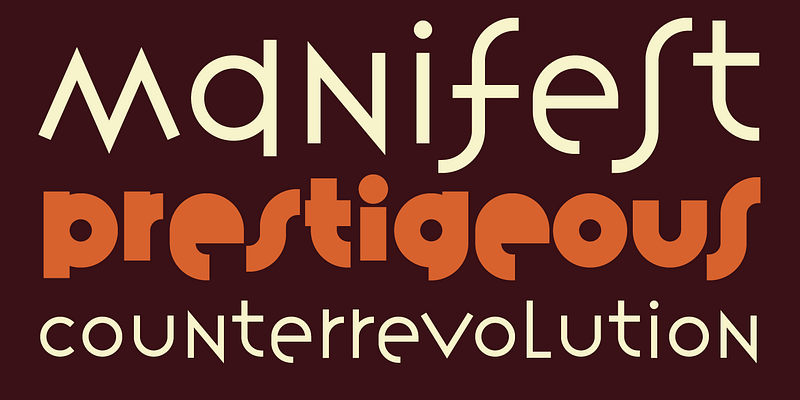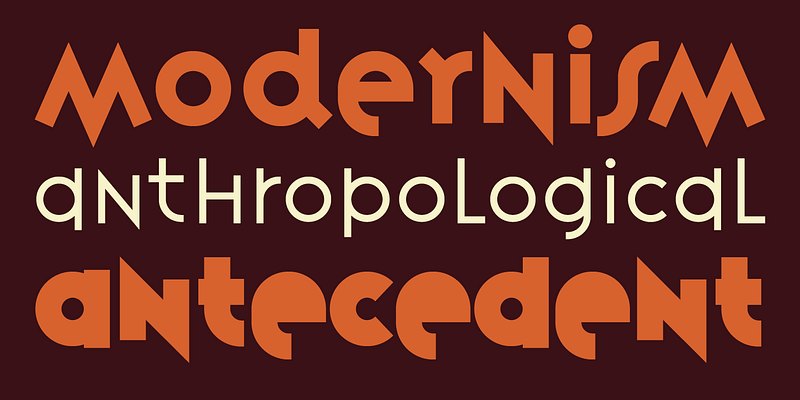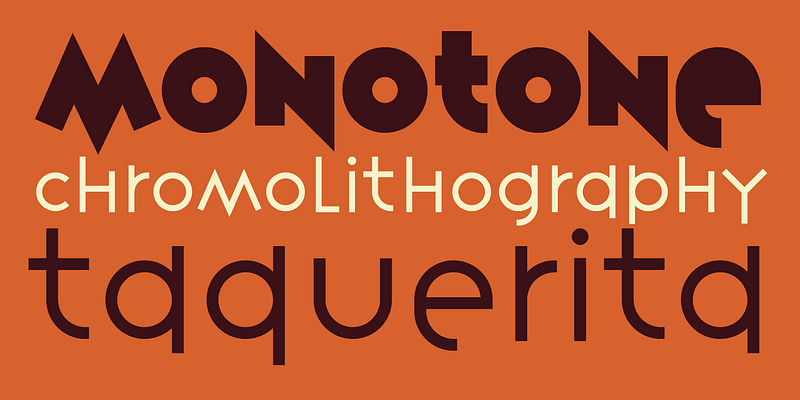
The design of Variex was a direct result of experiments with creating fonts that made efficient use of computer memory space, a serious consideration in 1988. Two separate outlines are usually needed to describe the delicate shapes of traditional letterforms. Single line “stroke” designs, on the other hand, required far fewer data points. So Licko conceived Variex as a “stroke” design, where each character is defined by a center-line of uniform weight from which the three weights were derived.
In most fonts, horizontal alignment of the x-height is sacred and is usually accomplished with a great deal of adjustments and optical corrections to the individual characters. Variex ignores this idea and emphasizes the opposite in the service of its overall concept. Varying the weight of a stroke typeface changes the thickness around the center line and thus alters the alignment of characters. Variex incorporates these variations of alignment as a distinguishing design element, making adjustments to the center lines unnecessary when changing the weight. As a result, the x-height varies among the three different weights and among the individual characters. This generates a unusual rhythm along the x-height that lends Variex its unique quality.
To further economize data, elements from capitals and lower case letters were combined into a single alphabet eliminating the redundancy of upper and lower case symbols. Although several alternative characters are provided for headline applications where optimal letter combinations are crucial.
By reducing the letterforms of Variex to their most basic alphabetic shapes, Licko has created a series of glyphs that are reminiscent of the powerful gestures of primitive writing hands. As a conceptual font Variex has limited applicability, but when properly employed it will stand out and make a lasting impression.